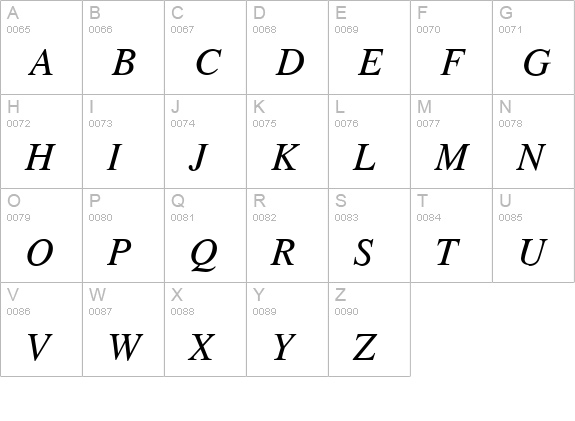
Toronto Italic Font Details
Toronto Italic is a distinctive, italic variant in the Toronto typeface family \xE2\x80\x94 well suited to design and typography projects.
Toronto Italic is a stunning font that exudes sophistication and elegance. Its sleek and slender letterforms are delicately slanted, adding a touch of modernity to any design project. This font is perfect for creating eye-catching headlines, stylish logos, and sleek branding materials. The beauty of Toronto Italic lies in its versatility. It seamlessly blends with both serif and sans serif fonts, allowing you to create harmonious and visually appealing compositions. Its clean lines and balanced proportions make it suitable for a wide range of applications, from wedding invitations to editorial layouts. One of the most remarkable features of Toronto Italic is that it is completely free to download. You can easily access it at FontsMarket.com, a reliable source for high-quality fonts. Whether you are a professional designer or a creative enthusiast, this font is a valuable addition to your font library. Toronto Italic is designed with attention to detail, ensuring legibility and readability even at small sizes. The soft curves and subtle strokes add a touch of elegance and sophistication to your designs. Its versatility makes it ideal for both print and digital projects, allowing you to create stunning visuals across various platforms. If you are looking to elevate your designs and make a lasting impression, Toronto Italic is the perfect choice. Its free availability at FontsMarket.com makes it accessible to everyone, regardless of budget constraints. Download Toronto Italic today and elevate your design projects to new heights.